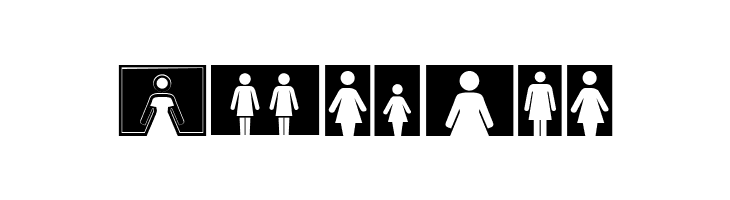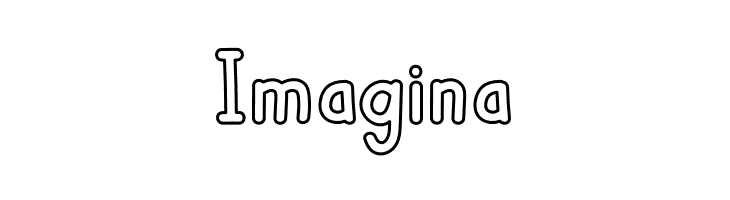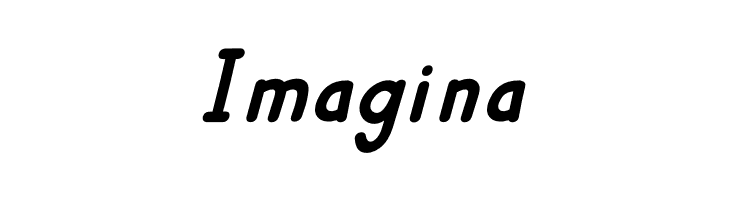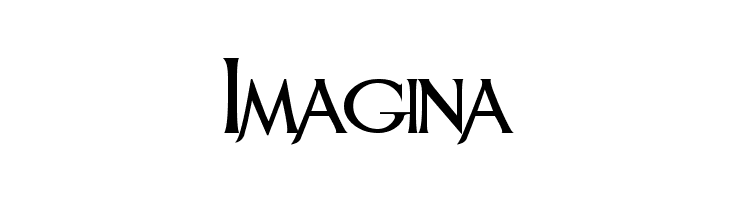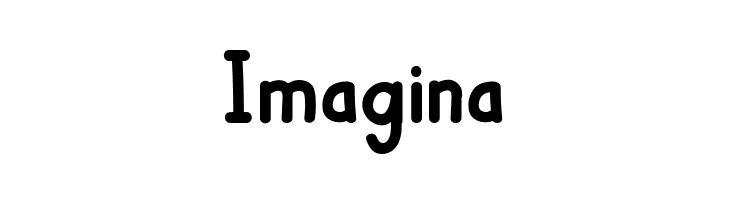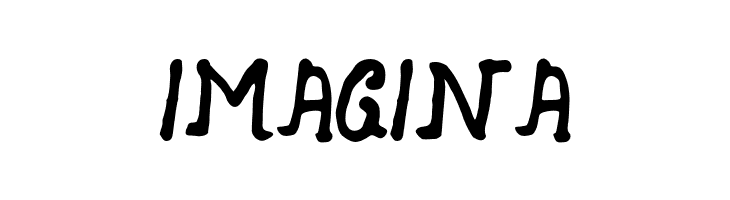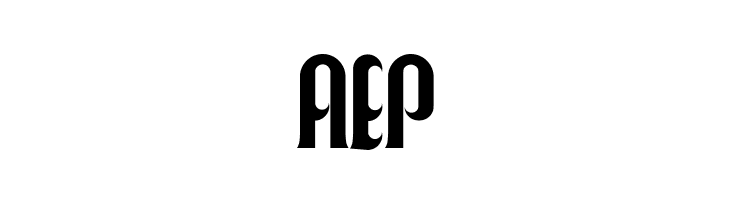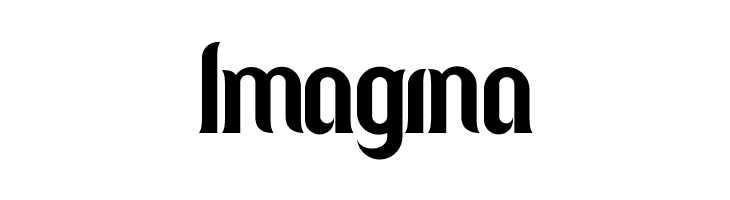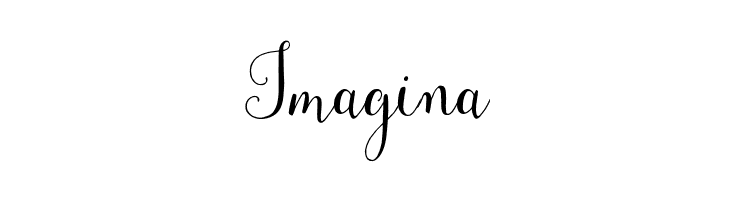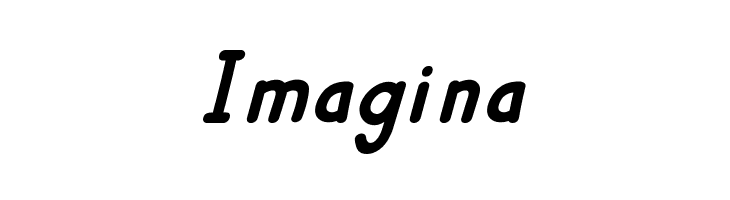
A clean, modern sans-serif font with a light weight and excellent legibility.
A modern, light sans-serif font with clean lines and excellent readability.
A modern sans-serif font with clean lines and balanced proportions.
A modern sans-serif font with clean lines and excellent readability.
A modern sans-serif font with semi-bold weight, offering clarity and versatility.
A playful, comic-style font with a hand-drawn, whimsical appearance.
A bold, modern font with vintage flair and high contrast, ideal for headlines.
A bold, modern font with vintage flair and fluid, elongated characters.
A striking serif font with sharp angles and smooth curves, exuding elegance.
A playful, rounded font with a bold and friendly appearance.
A playful, hand-drawn font with rounded, bold characters.
A playful, italic handwritten font with rounded, smooth characters.
A playful, handwritten-style italic font with smooth, rounded strokes.
A bold, outlined font with a playful and whimsical style.
A playful, bold outline font with rounded edges and consistent width.
A playful, handwritten font with a whimsical and friendly style.
An elegant script font with ornate swirls and loops, perfect for artistic projects.
An elegant and ornate script font with flowing, decorative letterforms.
Modern sans-serif font with geometric shapes.
Decorative pictogram font with stylized female icons.
A clean, modern sans-serif font with balanced spacing and consistent stroke width.
A bold, italicized font with a modern and authoritative style.
A modern, clean sans-serif font with uniform stroke width and excellent readability.
A bold, italicized sans-serif font with a modern and clean design.
A modern, bold sans-serif font with clean lines and excellent readability.
A modern, extra bold sans-serif typeface with italic styling.
A clean, modern sans-serif font with a minimalist design.
A modern, extra-light italic sans-serif font with a sleek and minimalist design.
A modern, italic sans-serif font with clean lines and balanced proportions.
A modern, light, and clean sans-serif font with excellent readability.
A modern, light, and italic sans-serif font with a sleek and elegant design.